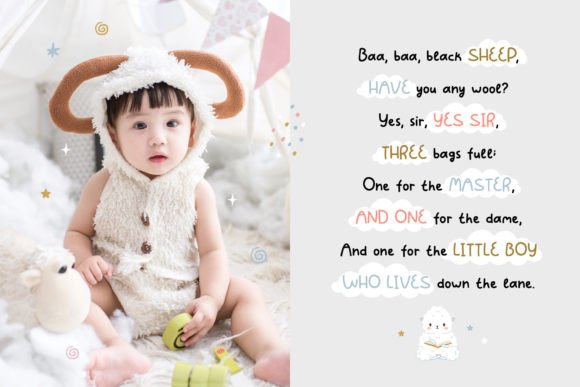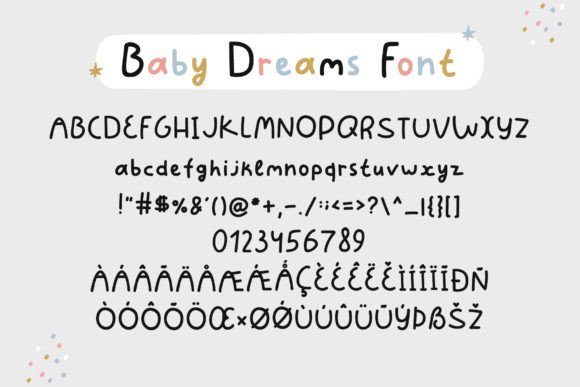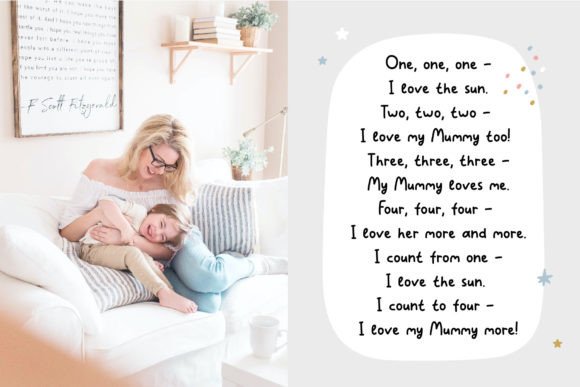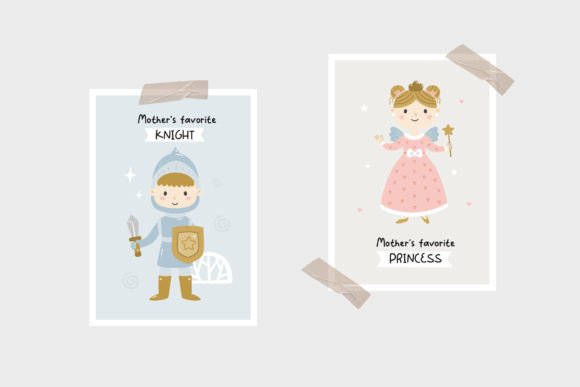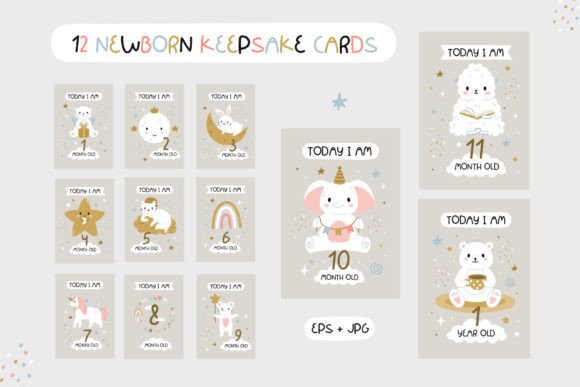
Unlocking the Magic of Baby Dreams Font
As designers, we’ve all been there – staring at a blank canvas, waiting for the perfect spark of inspiration to strike. For me, it was a 2 a.m. baby shower invitation design that needed a little something extra. That’s when I discovered Baby Dreams Font, and it was love at first sight! This adorable, playful font was exactly what I needed to bring my design to life.
Baby Dreams Font is more than just a cute typeface – it’s a tool for designers to create joyful, whimsical designs that capture the magic of childhood. Whether you’re designing baby shower invitations, nursery decor, or children’s books, this font is the perfect addition to your toolkit. With its extensive character set, including the Cyrillic alphabet, you’ll be able to create designs that are both fun and inclusive.
Baby Dreams Font Key Features
- Font Style: A whimsical, handwritten font with a childlike feel, perfect for baby-related designs and projects.
- Unique Characteristics: Includes a range of ligatures, swashes, and flourishes that add a touch of elegance and sophistication to baby-related designs.
- Font Weight: Available in 3 font weights: Light, Regular, and Bold, providing options for varying design styles and emphasis.
Baby Dreams Font Review
As a designer, I was excited to dive into the world of Baby Dreams Font. I’ve got to say, it’s a lovely addition to any nursery or children’s design project. Here’s what I loved about it:
- ✨ The whimsical, dreamy feel of the font is perfect for creating a soothing and calming atmosphere for little ones.
- ✨ The font is highly customizable, with a range of sizes and styles to choose from, making it easy to adapt to any design project.
- ✨ The design is clean and modern, making it a great choice for contemporary nursery designs.
- ⚠️ The font may not be suitable for all types of projects, particularly those that require a more formal or professional tone.
- ⚠️ Some users may find the font too cursive or playful, which may not be to their taste.
Overall, I think Baby Dreams Font is a wonderful addition to any designer’s toolkit. It’s perfect for nursery designs, children’s books, and other projects that require a playful and whimsical feel. Just be aware of the limitations, and you’ll be all set for creating some adorable designs!
The Baby Dreams Font is ideal for:
1. Children’s book covers and illustrations.
2. Nursery decor and baby-themed products.
3. Baby shower invitations and party decorations.
4. Branding and marketing materials for children’s products and services.
1. Use the font in combination with other soft, pastel colors to create a cohesive design.
2. Experiment with different font sizes and styles to add visual interest.
3. Use the font in conjunction with illustrations or graphics to create a whimsical and playful design.
Alternatives to Baby Dreams Font
Great Vibes is a modern, elegant script font perfect for creating a whimsical and playful atmosphere. It’s ideal for use in branding, packaging, and advertising where a touch of sophistication and whimsy is needed.
Compared to Baby Dreams Font, Great Vibes Font has a more refined and sophisticated look, making it suitable for a wider range of applications.
Creamy Font
Creamy is a beautiful, hand-drawn script font that evokes a sense of warmth and friendliness. It’s perfect for use in children’s products, food labels, and other applications where a soft, gentle look is desired.